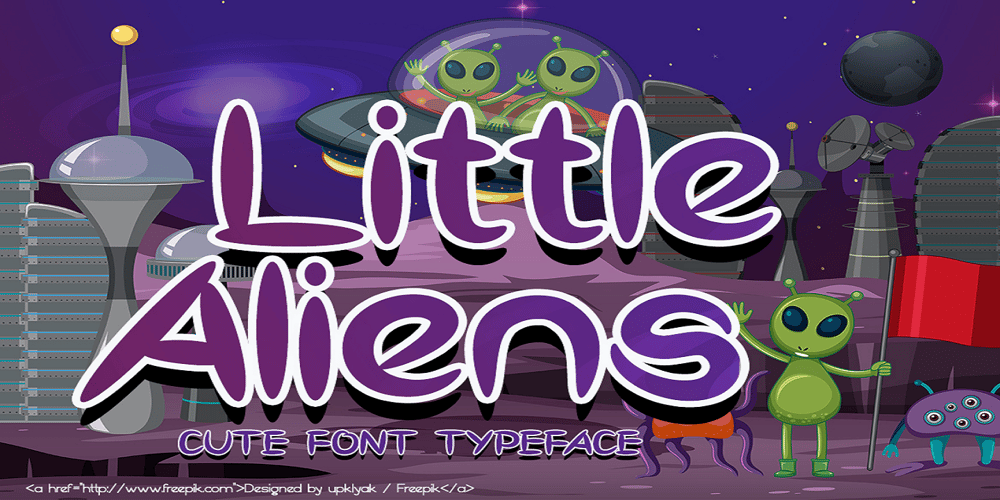
Little Aliens
Little Aliens font
Little Aliens Font Family was designed by Saiful Anwar and published by Sealoung. Little Aliens contains 1 styles and family package options. Little Aliens is a sweet and friendly display font. Its natural and cute style makes it incredibly fitting to a large pool of designs. This font is perfect for school and kids projects!